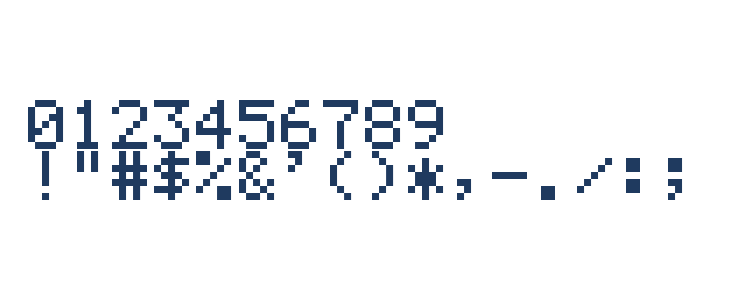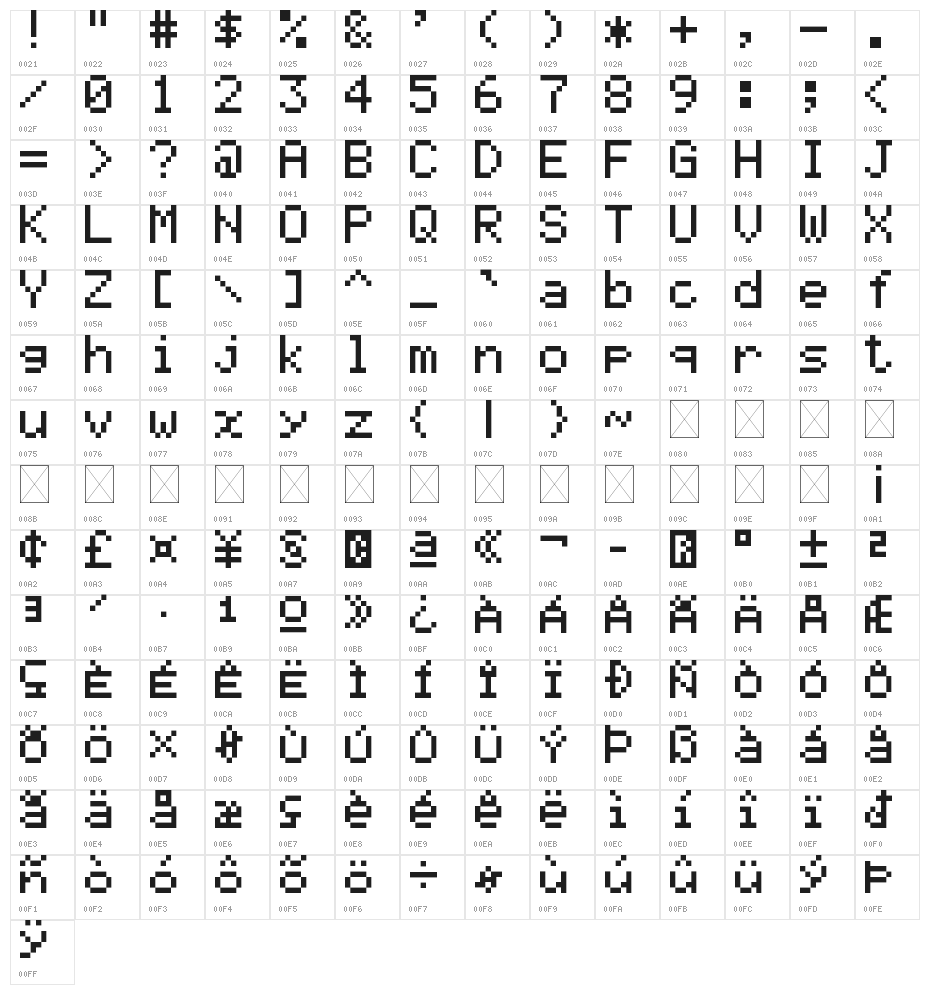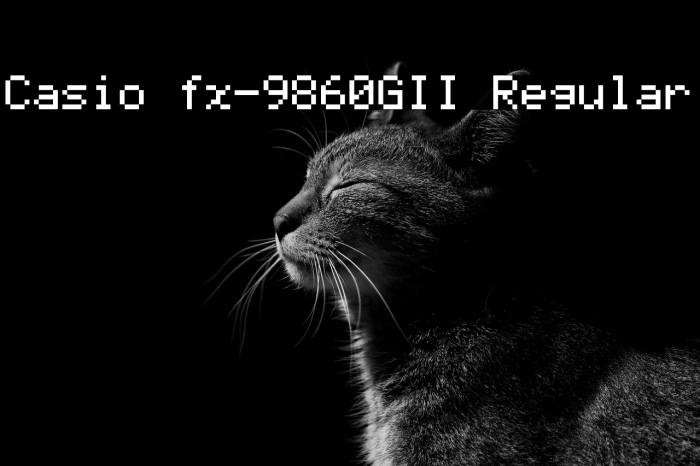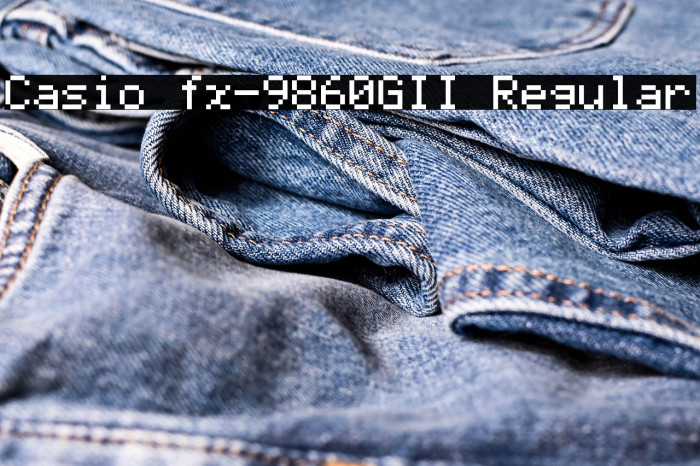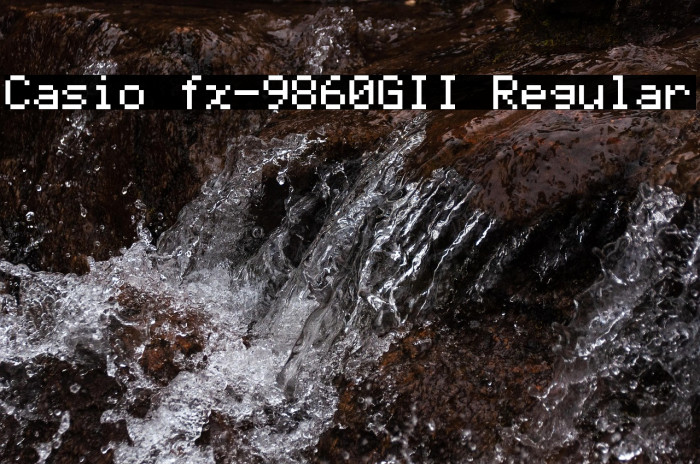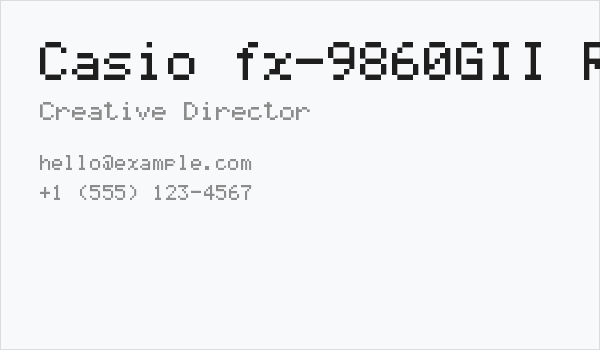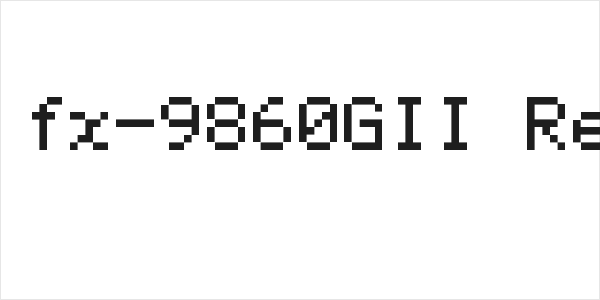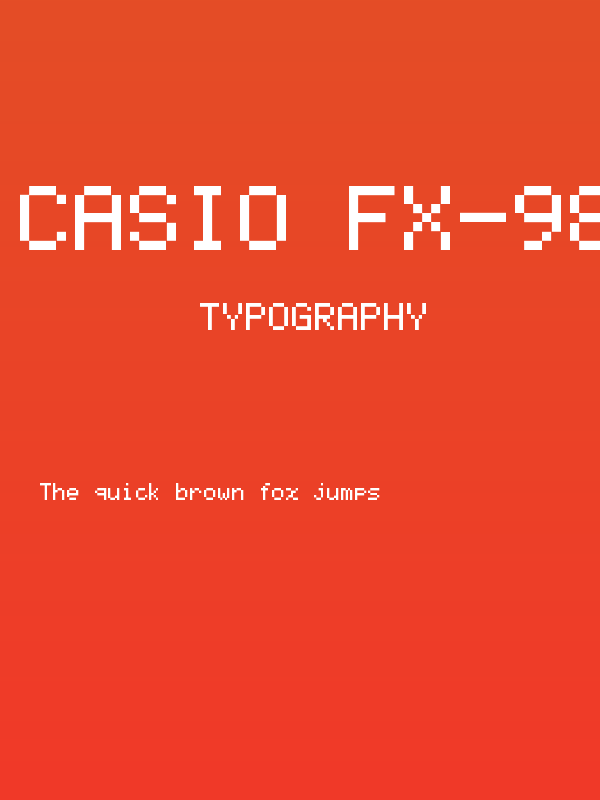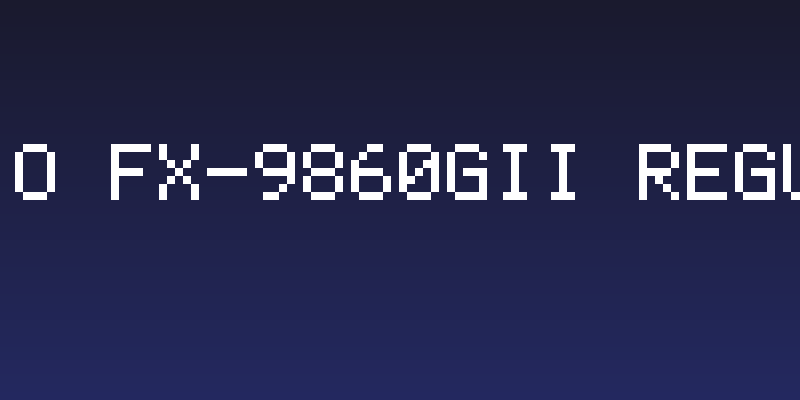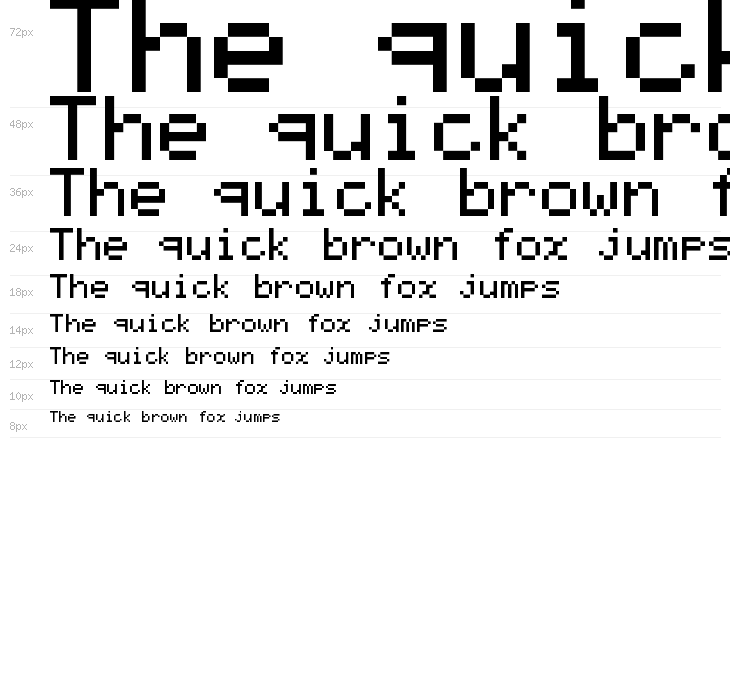
Casio fx-9860GII Regular Font
Casio fx-9860GII Regular Description
This font features a pixelated, monospaced design reminiscent of early digital displays and calculators. Each character is composed of a grid-like pattern, giving it a distinctly retro and technical appearance. The uniformity in character width ensures a consistent and orderly presentation, ideal for environments where clarity and precision are paramount. The uppercase and lowercase letters maintain a blocky aesthetic, while the numerals and special characters are crafted with the same pixelated style, ensuring visual harmony across all elements. This font's nostalgic charm makes it suitable for projects that aim to evoke a sense of vintage computing or digital minimalism.
| Use Case | Digital displays, coding, retro designs. |
| Proposed Projects | Ideal for retro-themed designs, digital art, coding environments, and projects requiring a vintage tech vibe. |